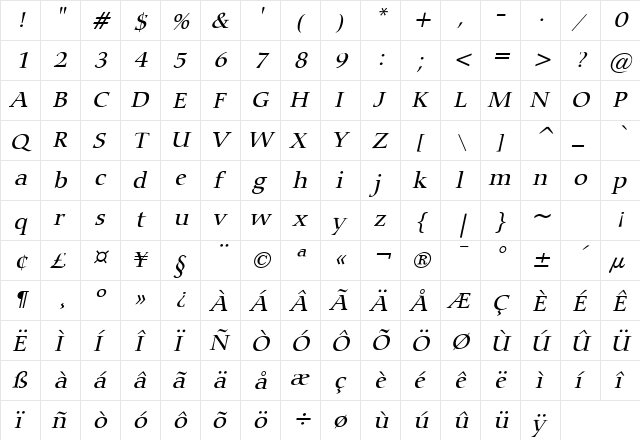
Carmine Italic
Design Context for Carmine Typeface
Carmine offers clean, dependable letterforms without strong stylistic allegiance, making it a practical choice for designers who need flexibility. The slanted form adds forward momentum and visual energy.
Pro Tip: Try Carmine for annotation and caption copy alongside an upright companion — the contrast in angle creates a dynamic but ordered typographic system.